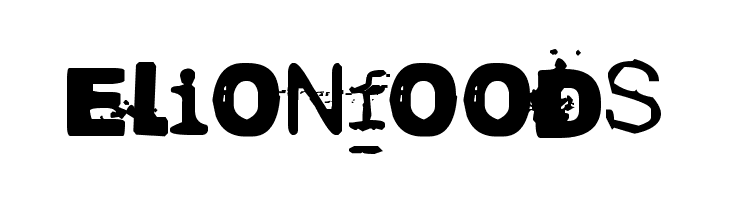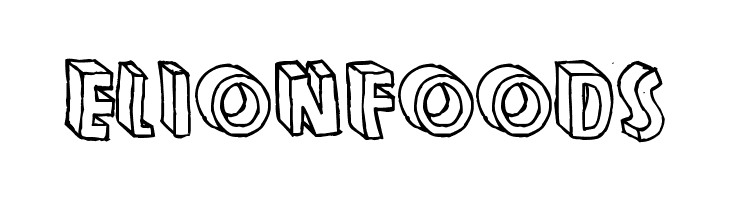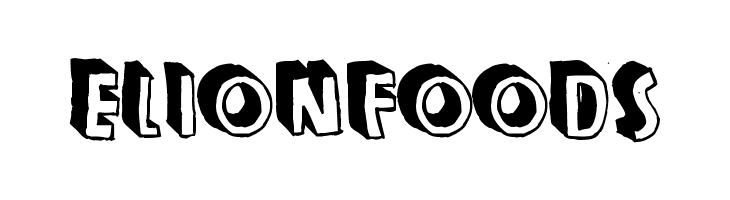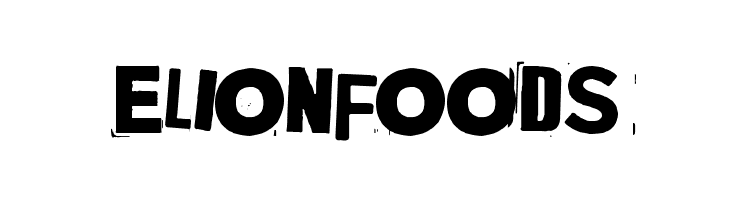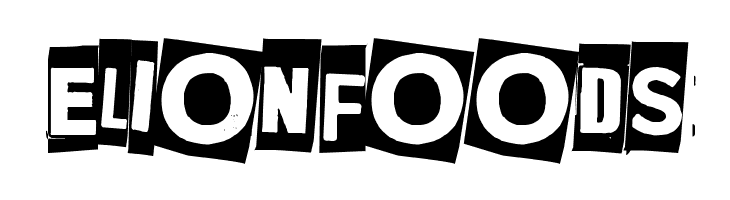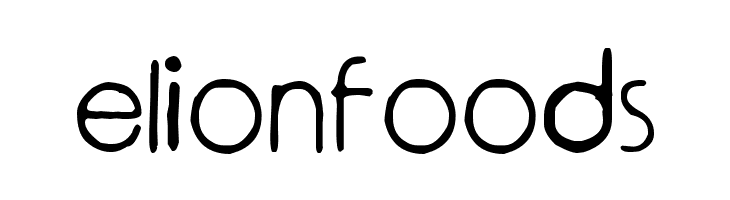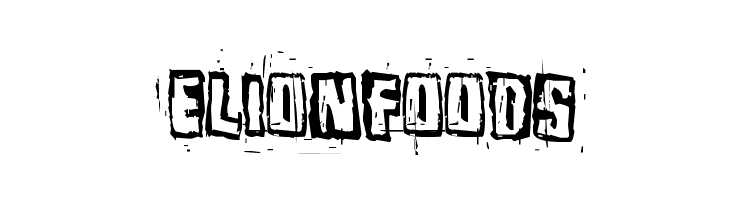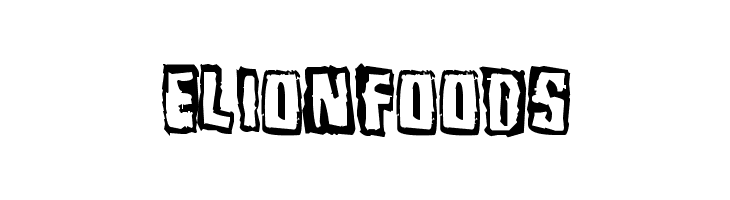
• Hullunkruunu
• Zupagargonizer
A bold, 3D hand-drawn font with a playful, cartoonish style.
• Zupagargonizer T
A bold, playful font with a three-dimensional shadow effect.
• Ellet niin
A bold, distressed font with a vintage, cut-out style.
• Jadefedgah[8002]
A bold, distressed font with a cut-out, ransom note style.
• Jadefedga[08]
A bold, distressed font with a grunge aesthetic and dynamic character shapes.
• Jadefedgah[80]
A bold, cut-out style display font with high contrast and unique character designs.
• ympyroity
A playful, hand-drawn font with rounded, irregular shapes.
• Pozothree
A bold, distressed font with a rugged, hand-drawn appearance.
• Pozofour
A bold, distressed font with a rugged, graffiti-like style.